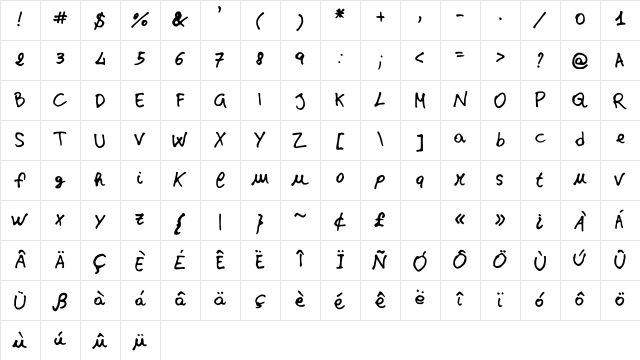
JDStefania Medium Free Font
JDStefania Medium
Design Context for JDStefania
JDStefania is a composed and adaptable typeface that performs quietly and consistently across a wide range of design contexts.
Pro Tip: Use JDStefania in both headline and body roles to test its range before committing to a single application.